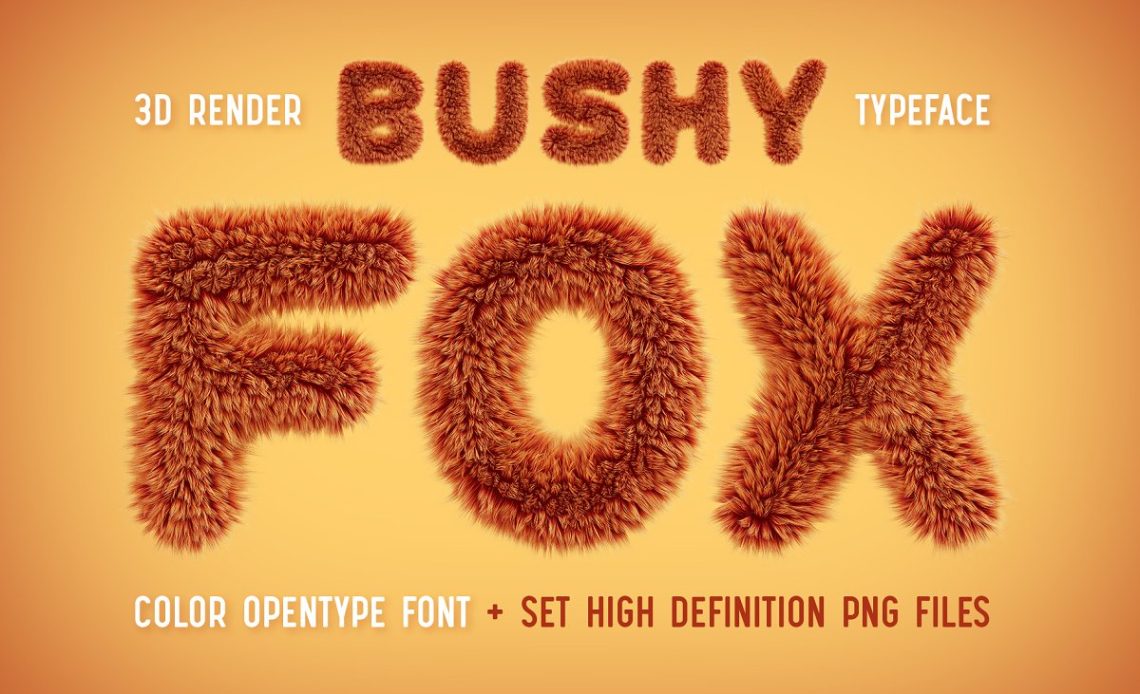
Attention all designers and creative professionals! Spice up your design projects with the newest addition to our font collection, the Bushy Fox color font. Created by the talented Gleb Guralnyk, this font is not only visually appealing, but also versatile, making it perfect for a wide range of design applications.
As a 3D rendered high-quality typeface, the Bushy Fox font features a fluffy fur shape that adds a playful touch to any design project. With its unique design and vibrant colors, this font is sure to capture the attention of anyone who sees it.
And don't worry about limitations. Although the font is a new technology, it is incredibly user-friendly, with only English language and basic punctuation supported. You can easily check out all the available characters in the screenshot provided.